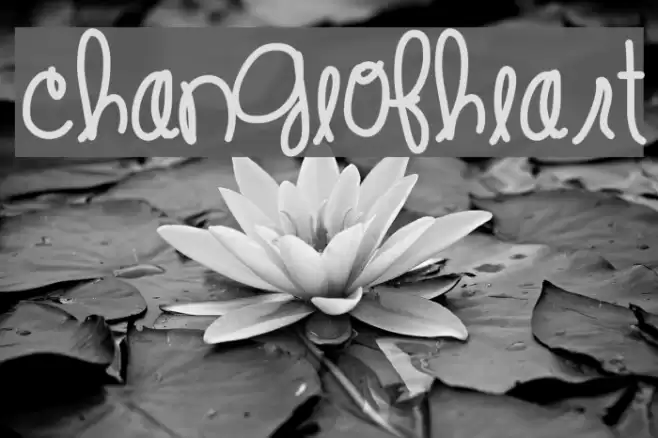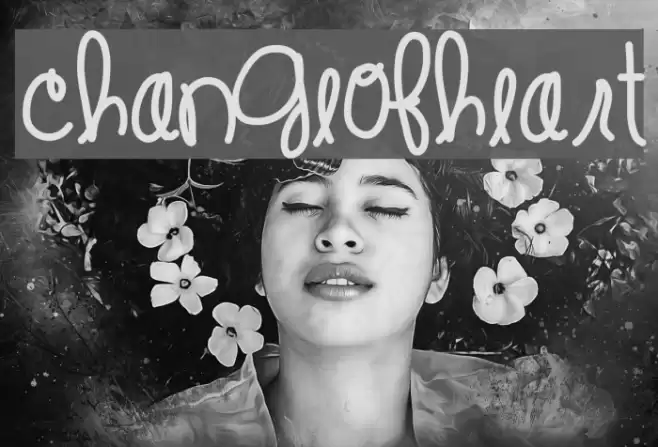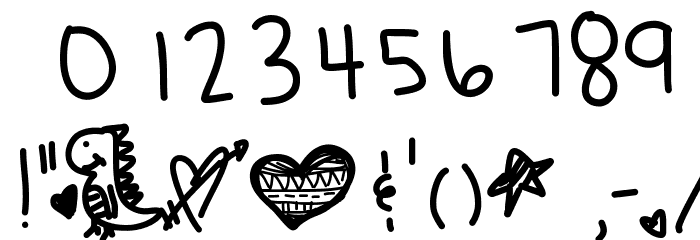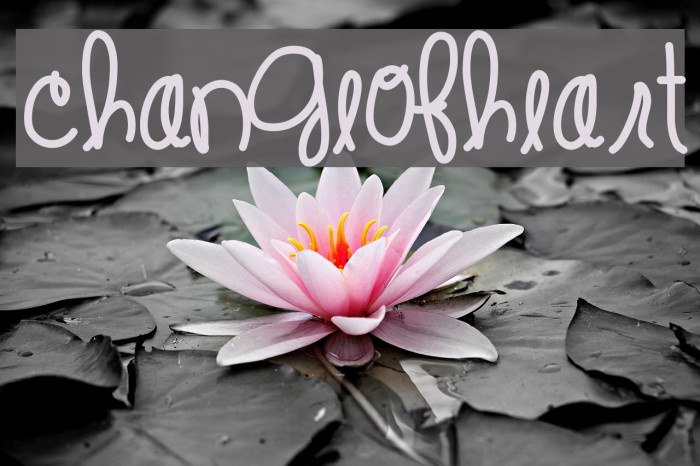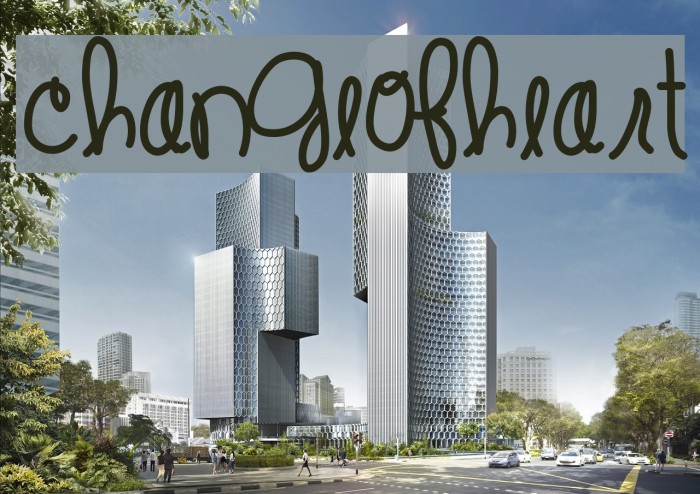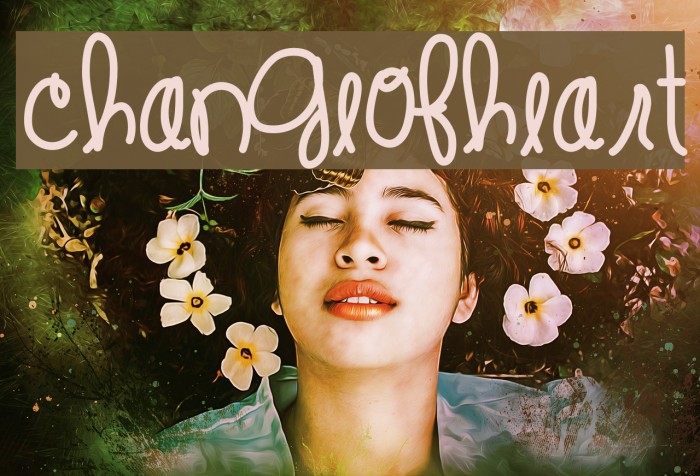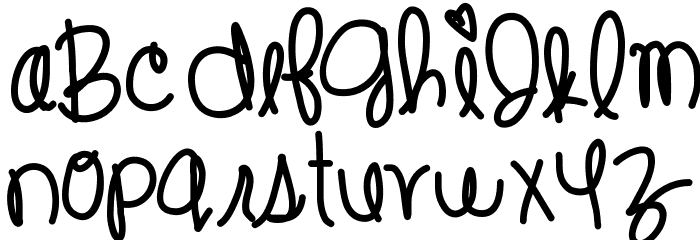
ChangeOfHeart Font
ChangeOfHeart Description
This playful and whimsical font features a handwritten style with a charming, personal touch. The letters are characterized by their rounded, flowing shapes and occasional heart motifs, adding a sense of warmth and friendliness. The font maintains a consistent stroke width, giving it a balanced appearance. The inclusion of unique special characters, such as hearts and stars, enhances its decorative appeal. Its informal and casual style makes it ideal for projects that require a personal or creative touch, such as greeting cards, invitations, or children's book illustrations.
A playful handwritten font with heart motifs and decorative elements from Uncategorized fonts.
- Proposed Projects: Ideal for greeting cards, invitations, children's books, and creative projects.